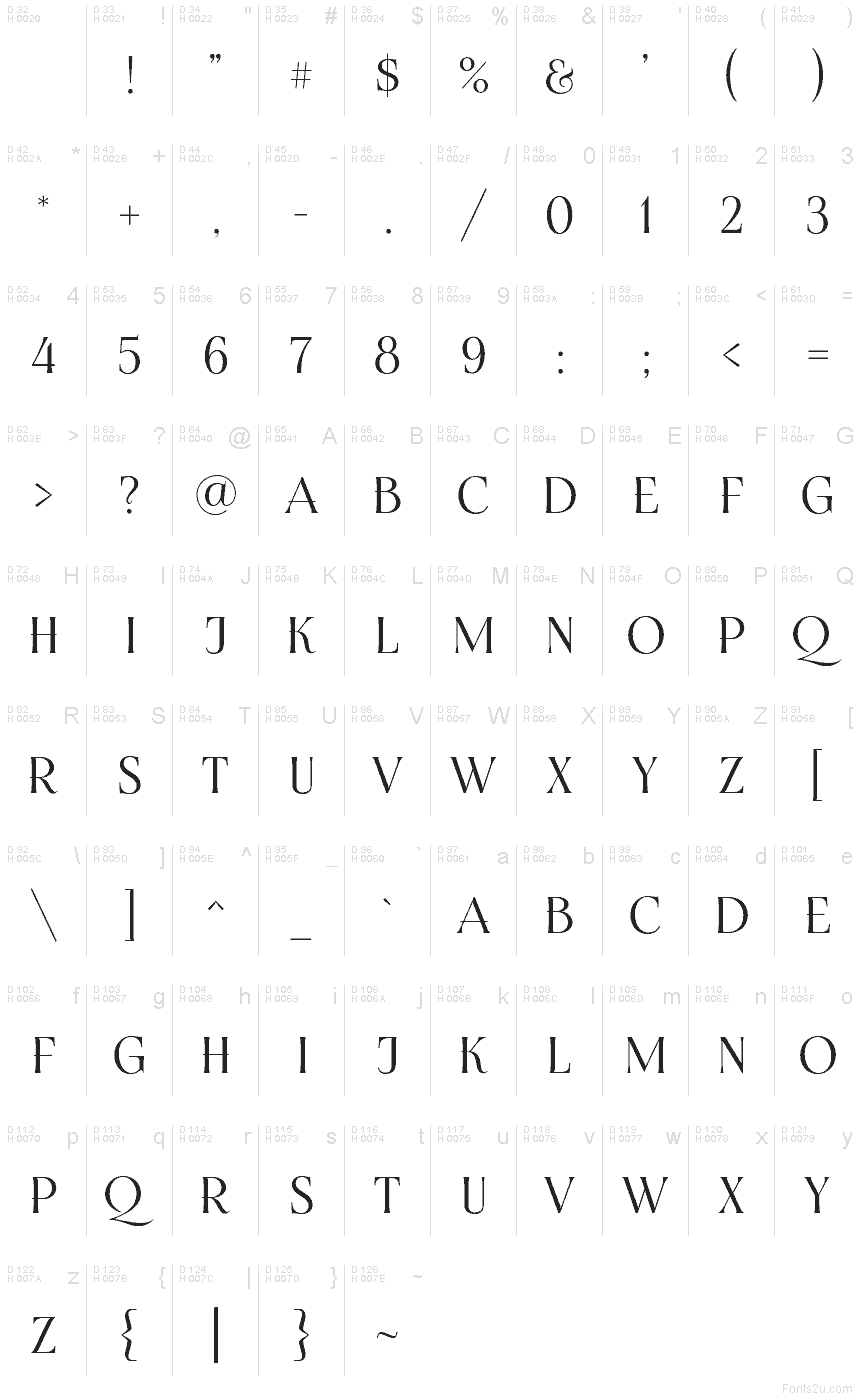
Surroundski font by Gluk is an elegant modern serif typeface that’s beautifully refined and sophisticated. With a minimalist style, this decorative font achieves uniqueness with dynamically changing glyphs and contextual alternates that enhance text flow. In addition, the multilingual all-caps lettering of Surroundski can easily catch attention while remaining easy to read.
Use the free serif font in magazines or book titles, headlines on posters or flyers, invitations or greeting cards, branding and identity designs, packaging label design whether for cosmetic or food products etc. The typeface works beautifully in poetry books where readers can specifically appreciate the text’s enhanced flow achieved with uncommon glyph combinations.